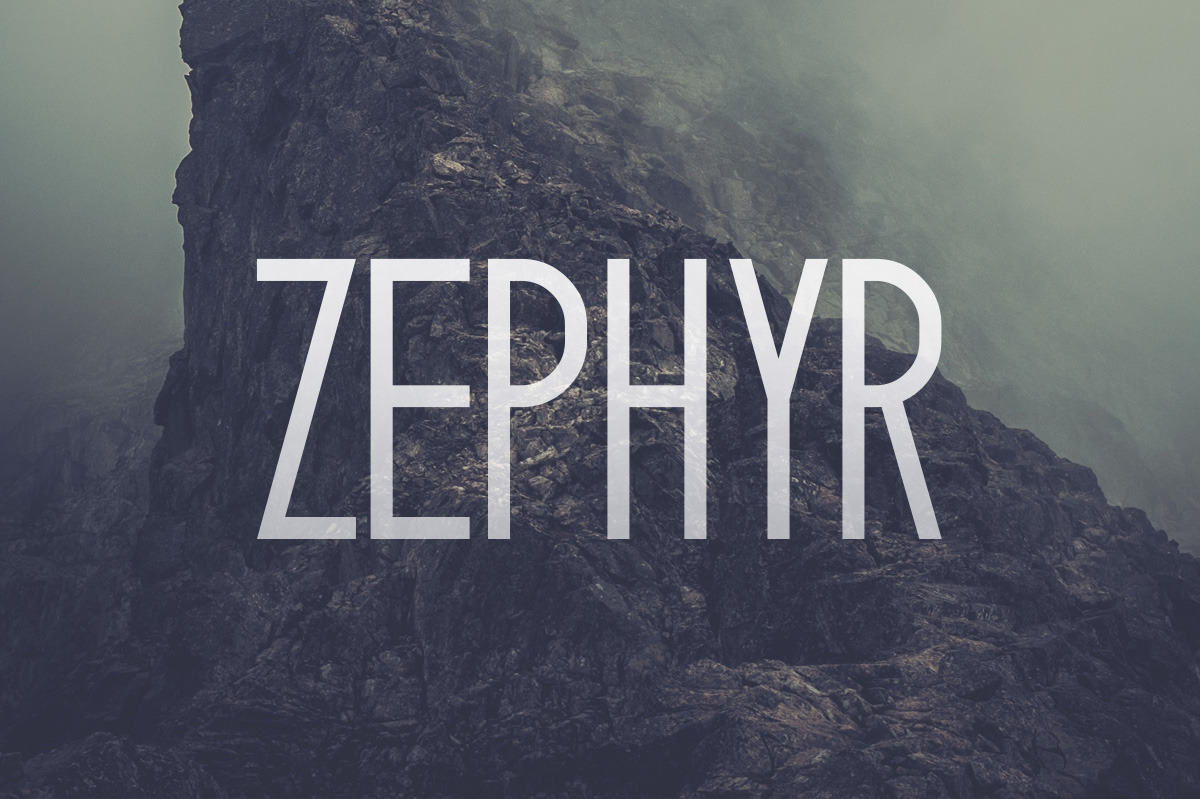
Zephyr Typeface
Zephyr is a tall display typeface in 4 different styles. It includes uppercase English letters and numbers. There are no lowercase letters and minimal punctuation. The grunge version is quite detailed so it might require a stronger system to install.